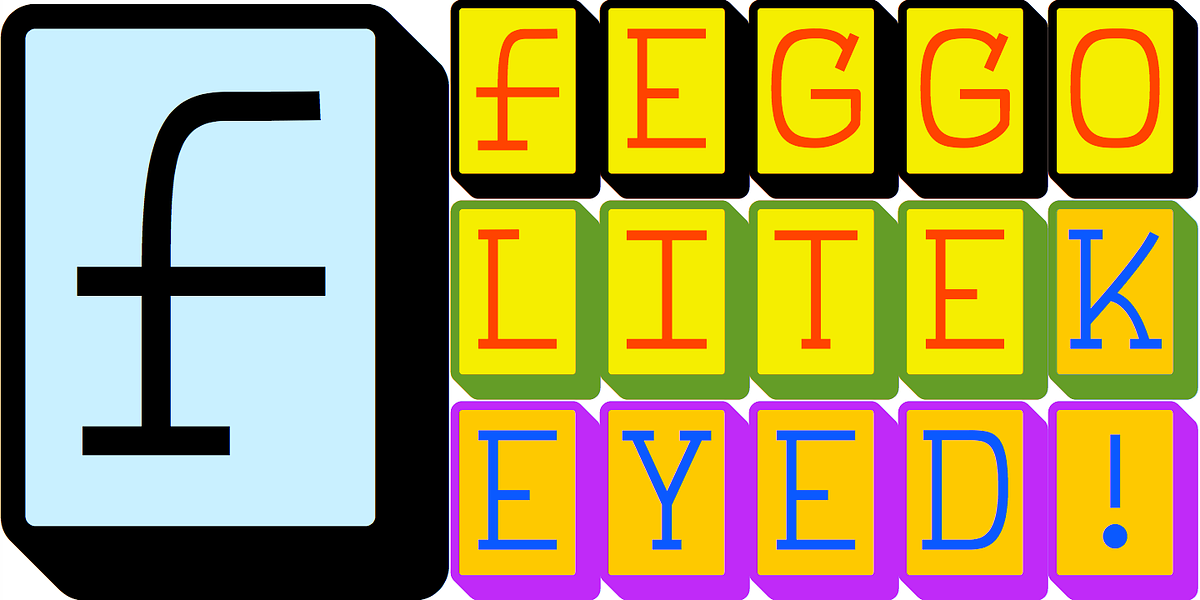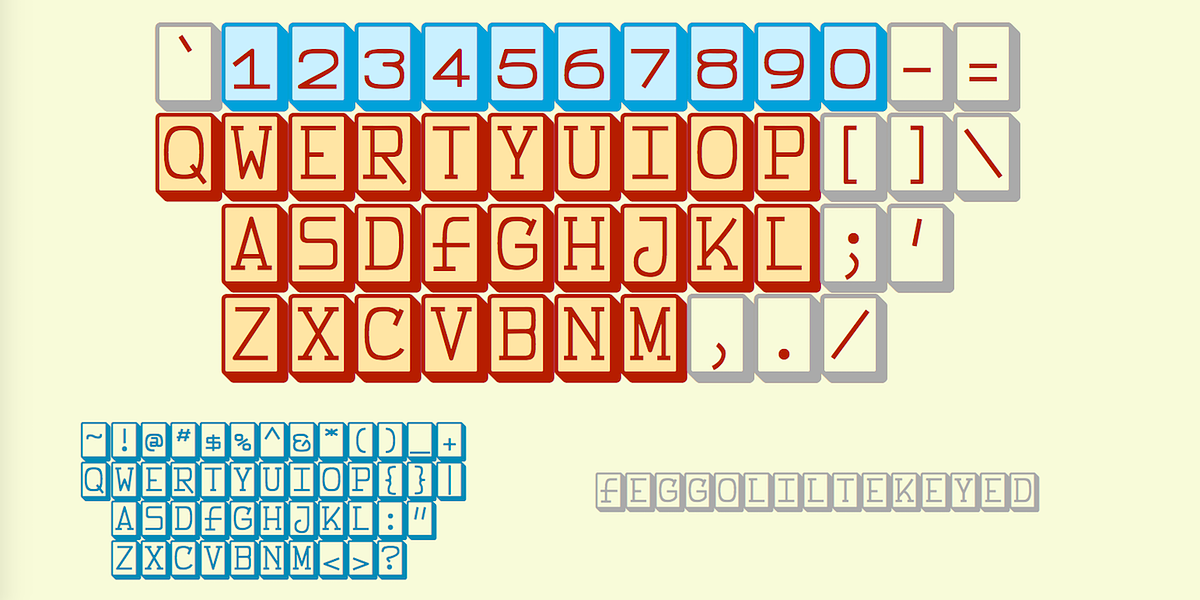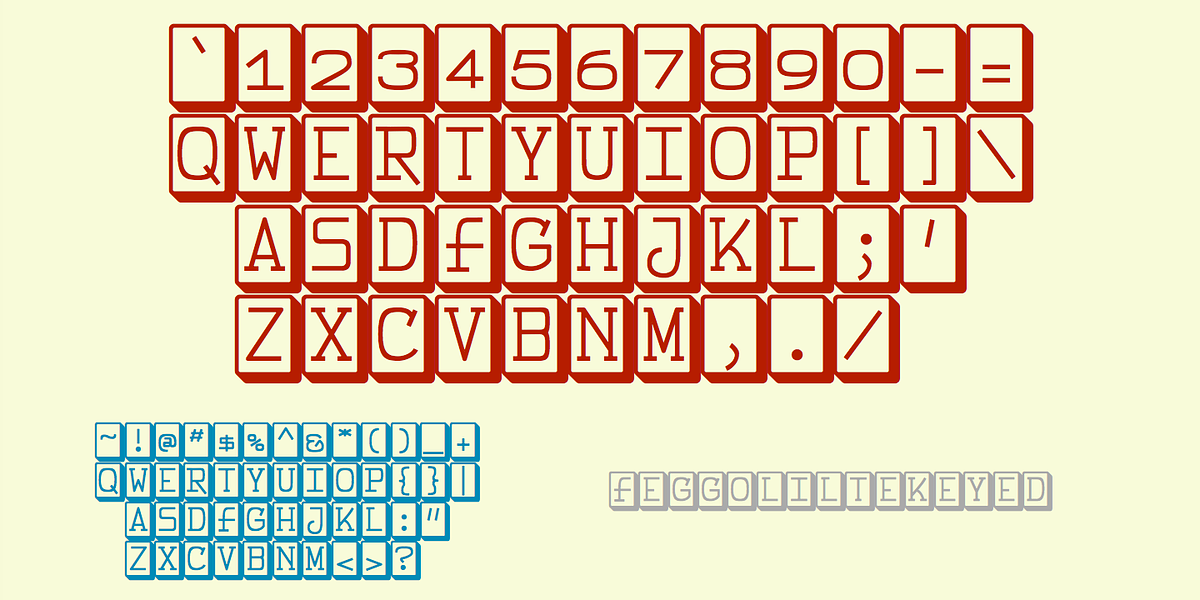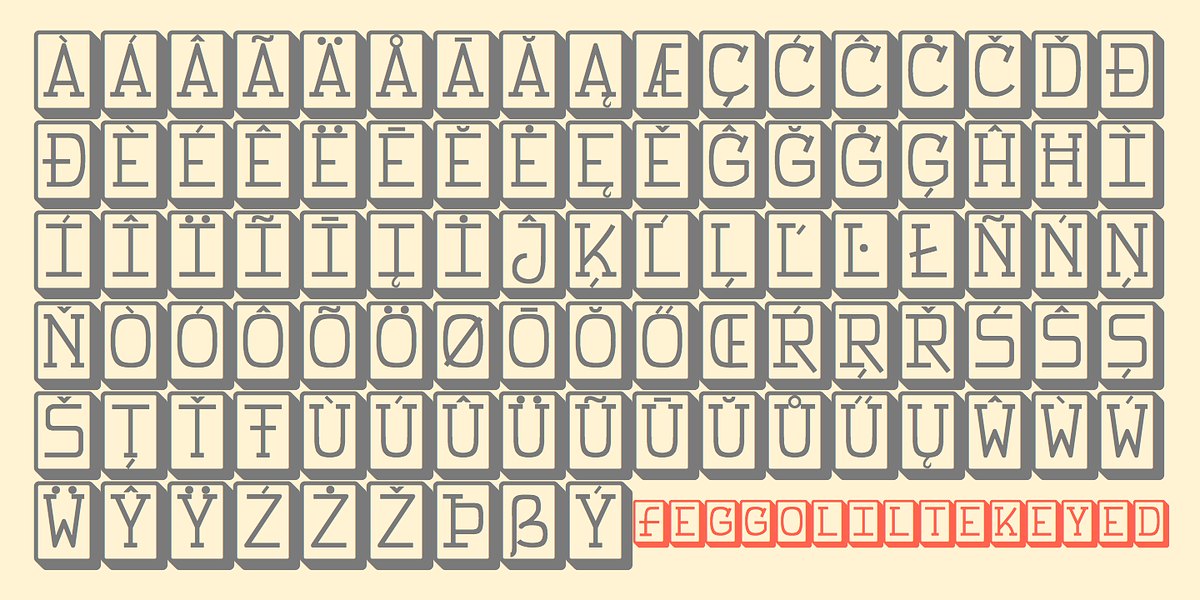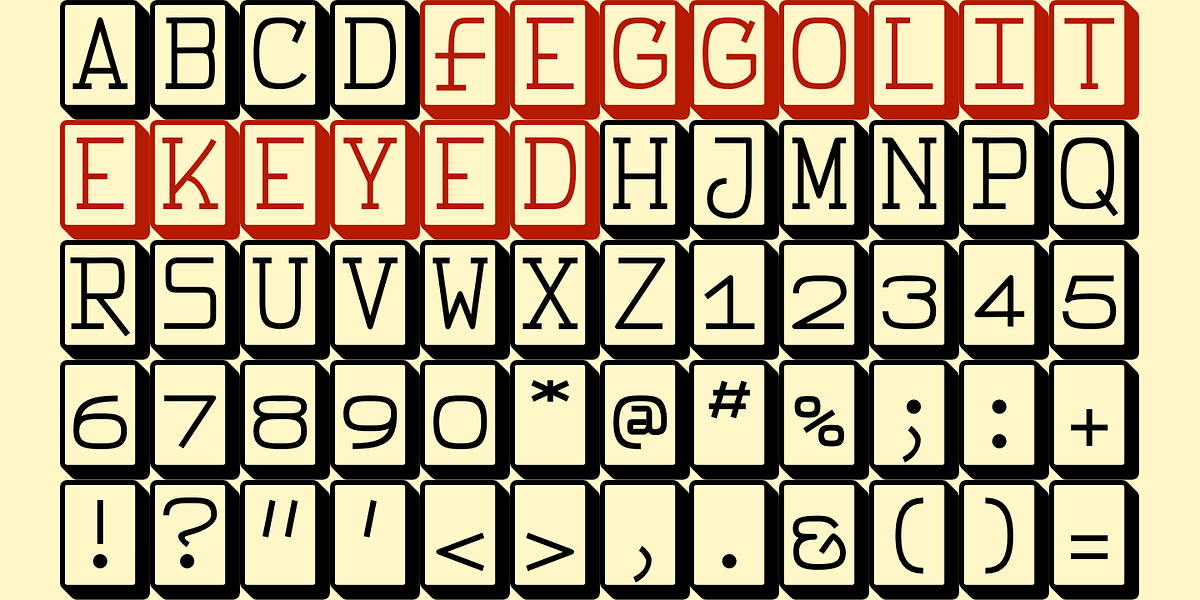
FeggoliteKeyed
FeggoliteKeyed is a unique dingbat font that presents uppercase letters within rounded rectangles. Each letter features subtle shadows, adding depth and visual interest. Its monospaced design ensures consistent spacing between characters, making it suitable for headings, branding elements, and decorative applications where a playful and modern aesthetic is desired.